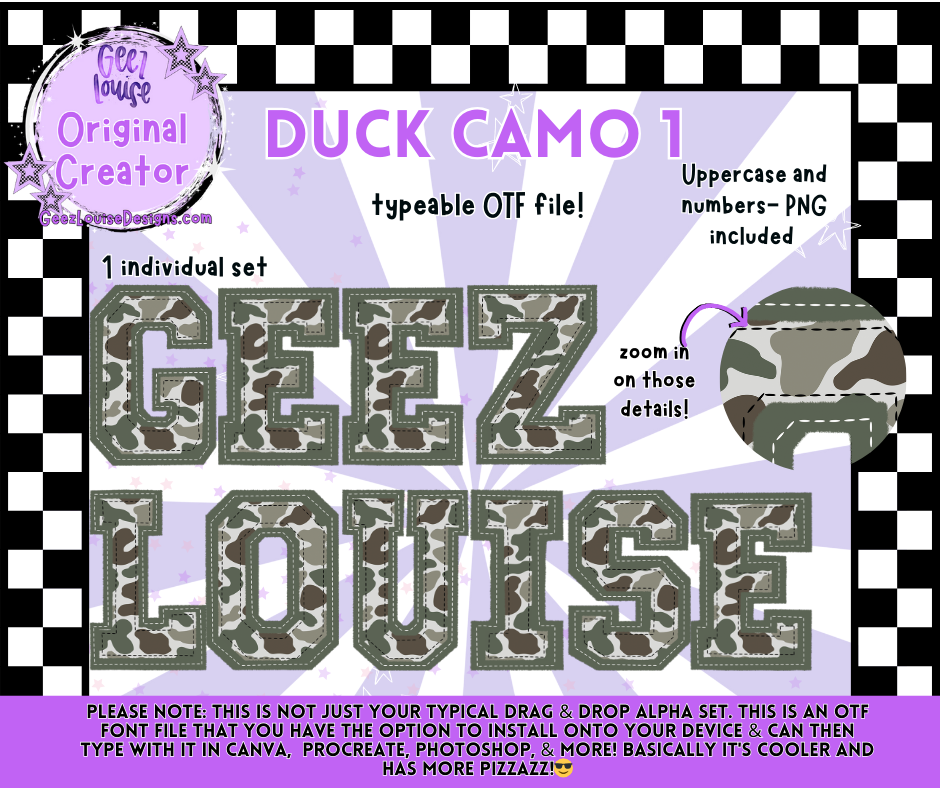
Duck Camo #1— Typeable OTF Font + PNG
Classic camo, but make it loud. Duck Camo 1 is your go-to for bold, textured type that feels like a field trip through chaos. Designed for creators who want their fonts to hit harder than a mall goth in camo pants.
Why It Slaps:
Perfect for merch drops, mascot lore, and caption challenges
Built for layering, remixing, and stirring up trouble